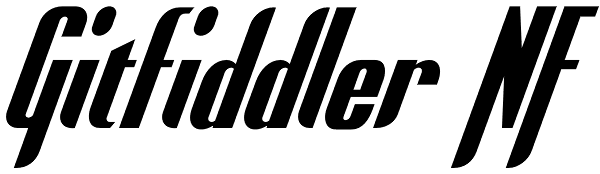
Gitfiddler NF
Lettering on a package of Gibson guitar strings from the 1950s provided the inspiration for this font-on-the-go. If you want to set headlines on a bias, you can rotate the text 20° for best effect. Both versions of the font contain the complete...